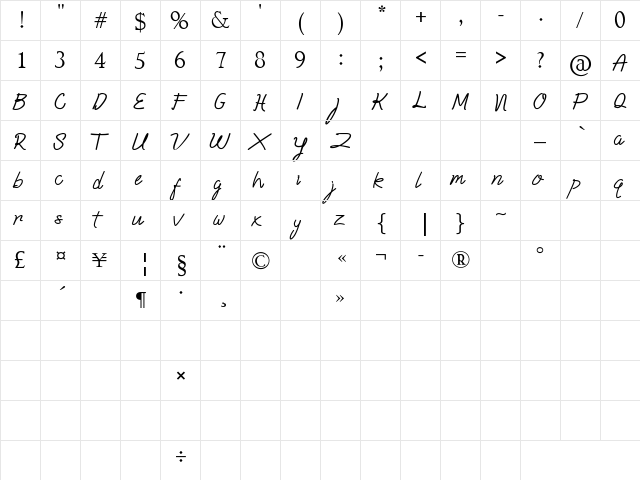
Bella Armanda Regular
| Designer | Gigih Wiryana |
Design Context for Bella Armanda Typeface
Bella Armanda takes a measured approach to typography — its balanced proportions and neutral character make it a reliable workhorse for both digital and print work.